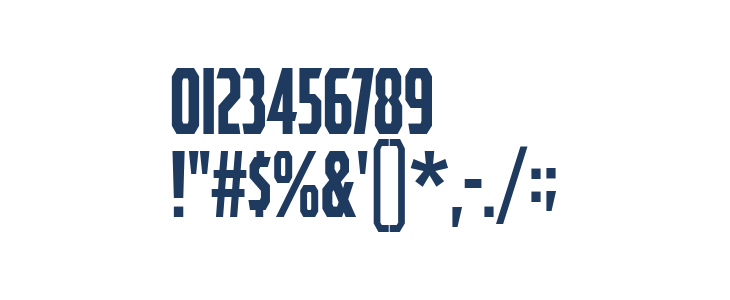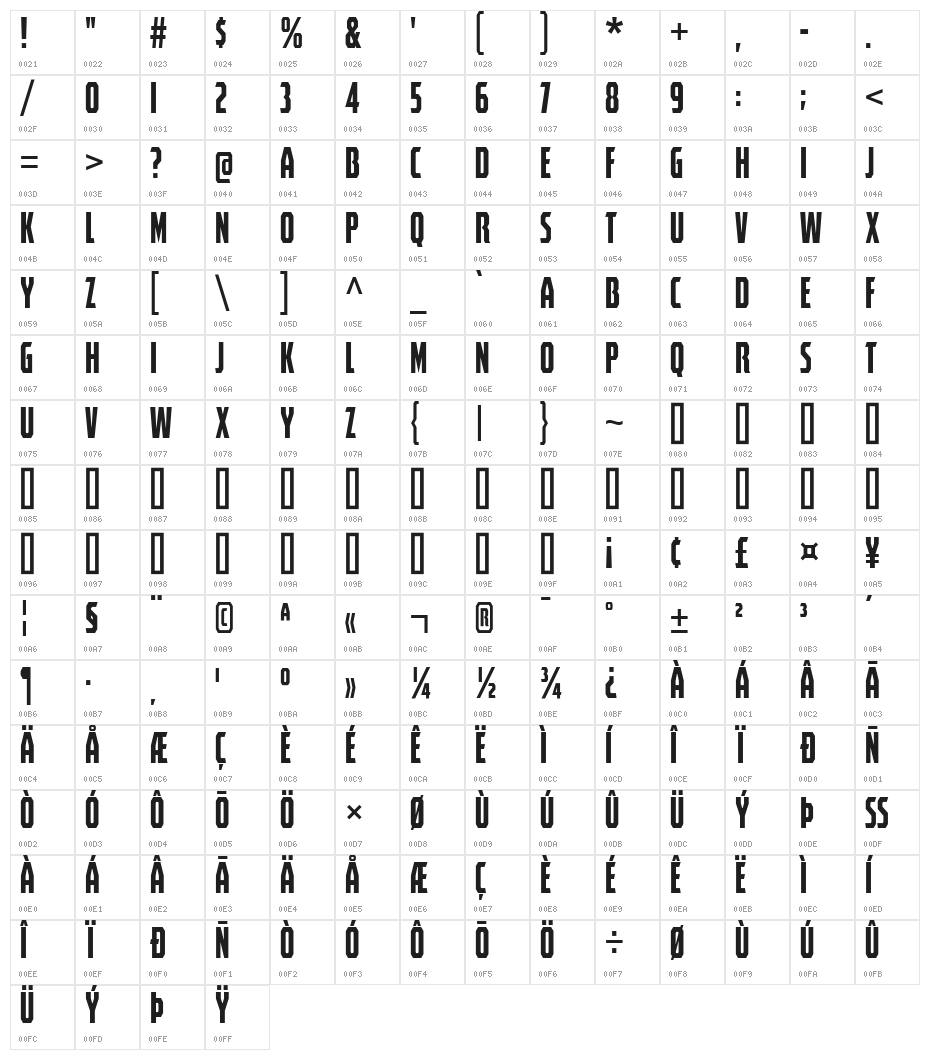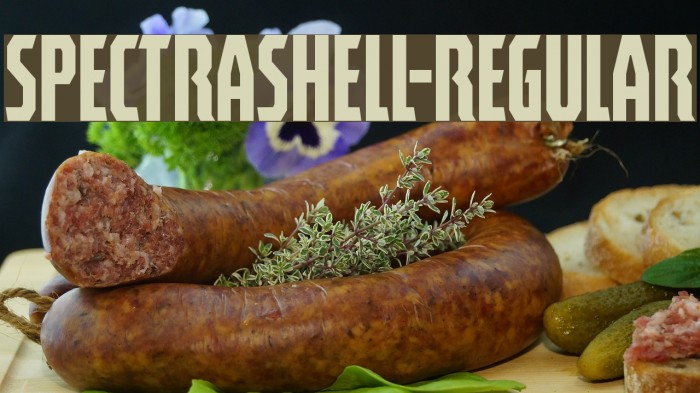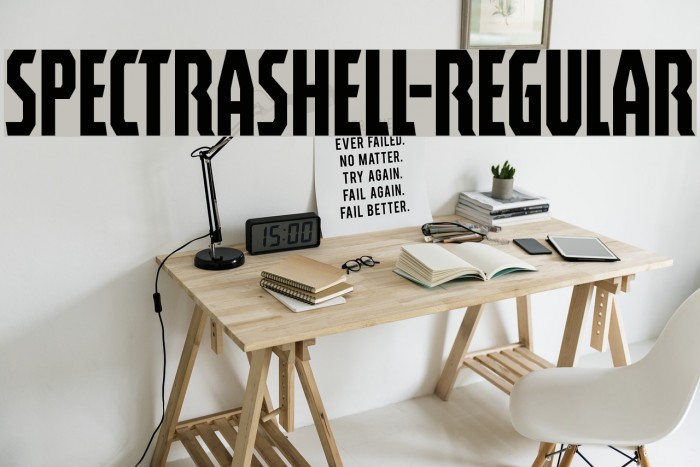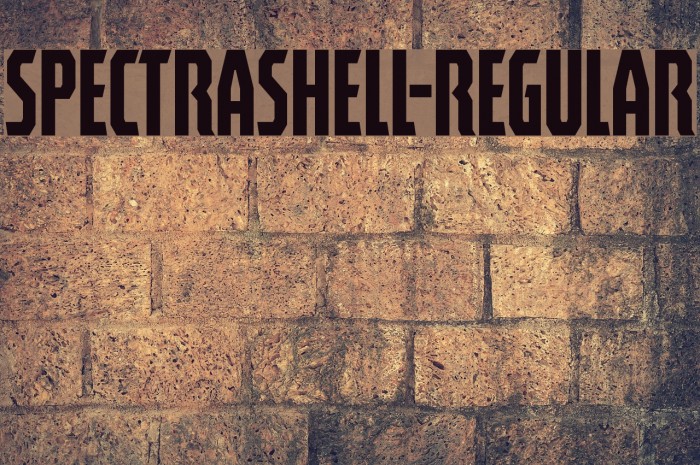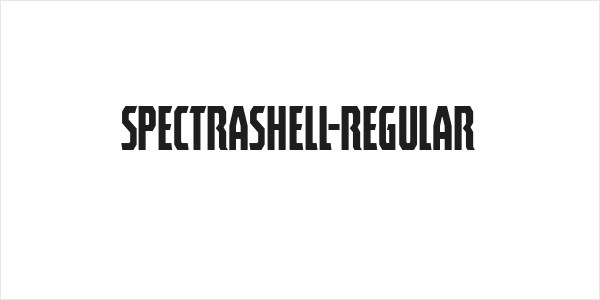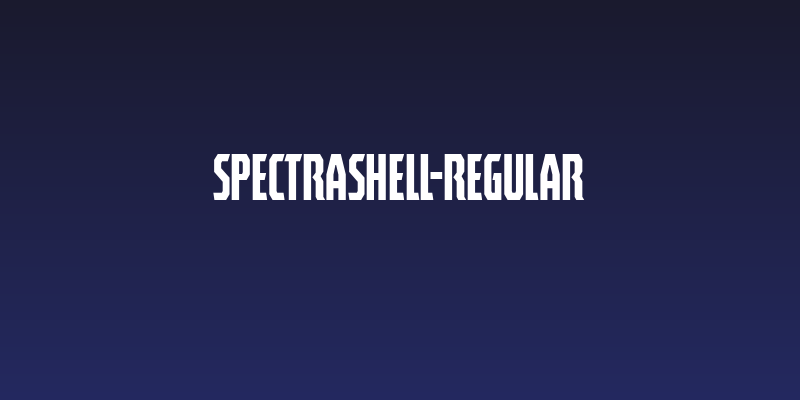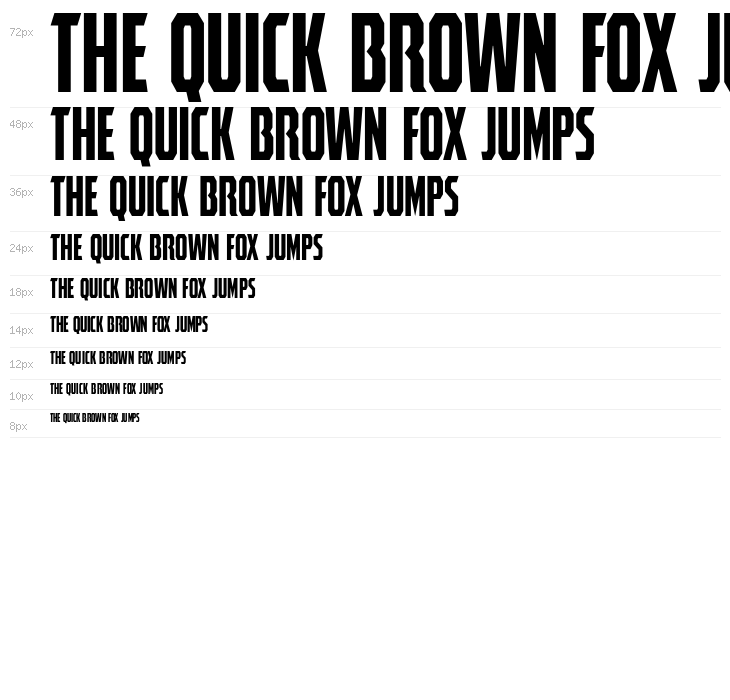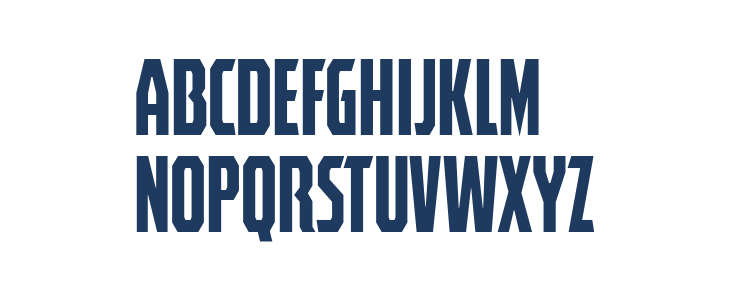
Spectrashell-Regular Font
Spectrashell-Regular Description
This font features a bold and impactful design with strong geometric shapes and a condensed structure. The uppercase letters are uniform in height, creating a cohesive and powerful appearance. The characters have sharp angles and a modern aesthetic, making them stand out prominently. The numbers and special characters maintain the same boldness and geometric style, ensuring consistency across all elements. This font is ideal for projects that require a strong visual impact and a contemporary feel.
| Proposed Projects | Ideal for branding, posters, headlines, and any design requiring a strong visual impact. |